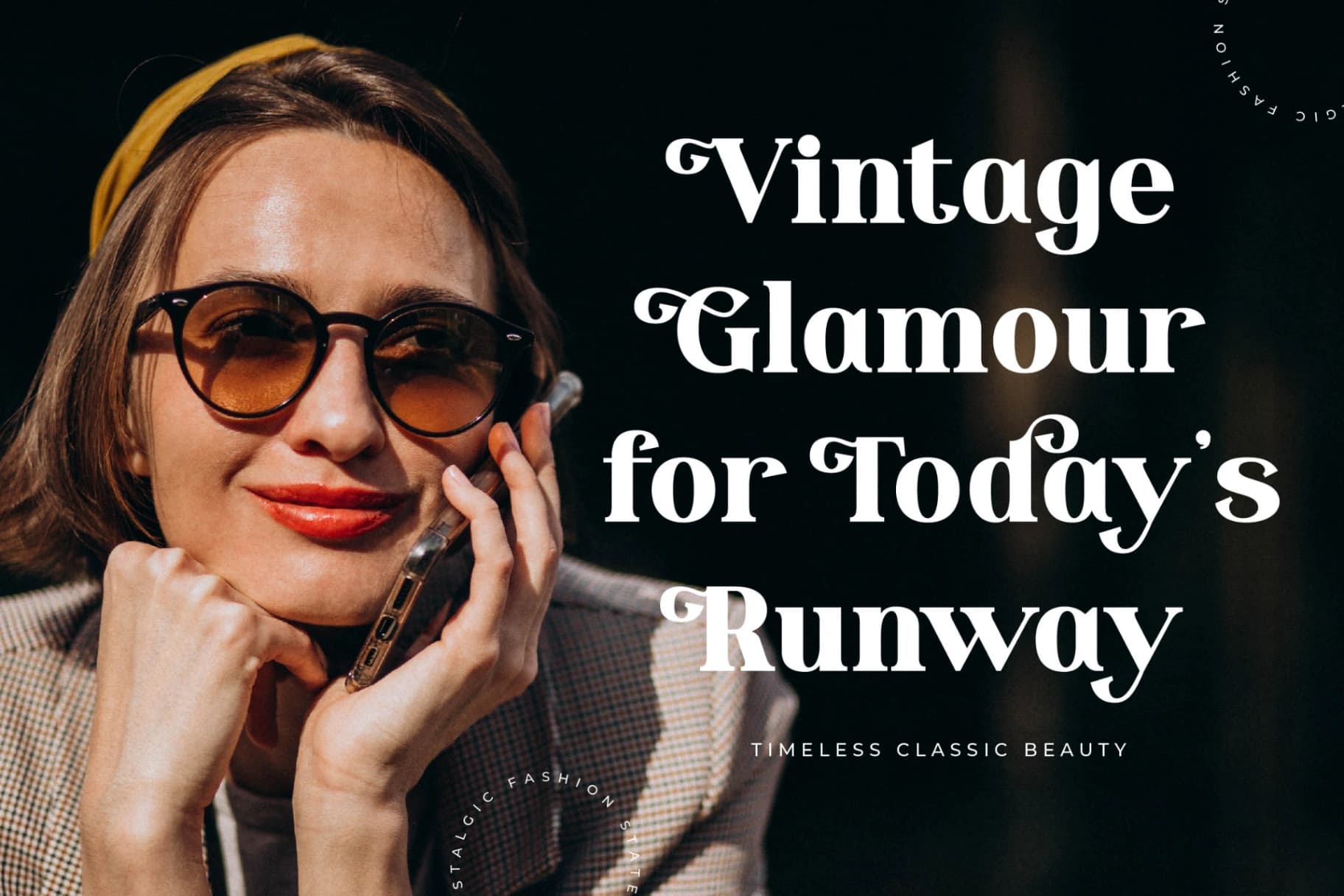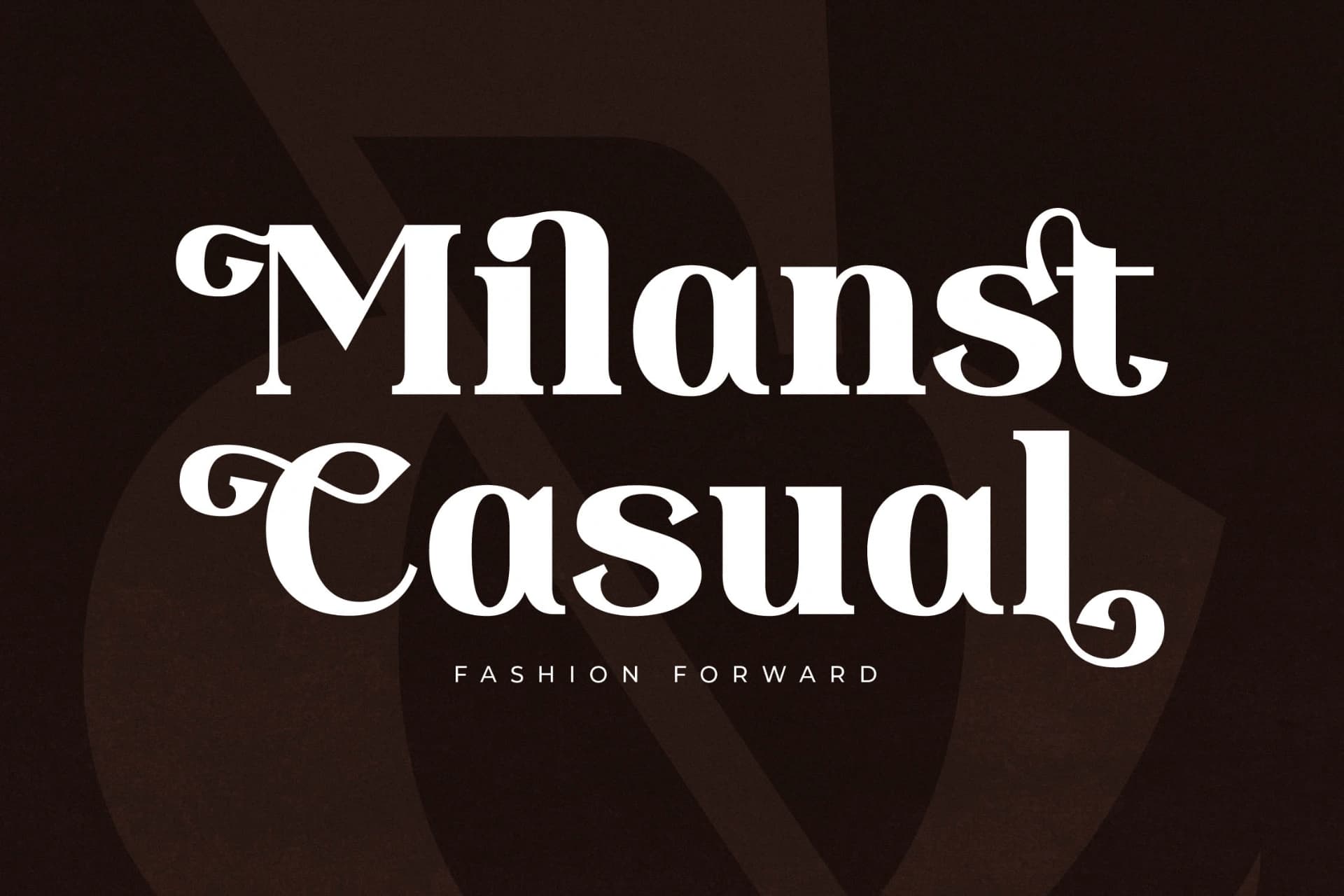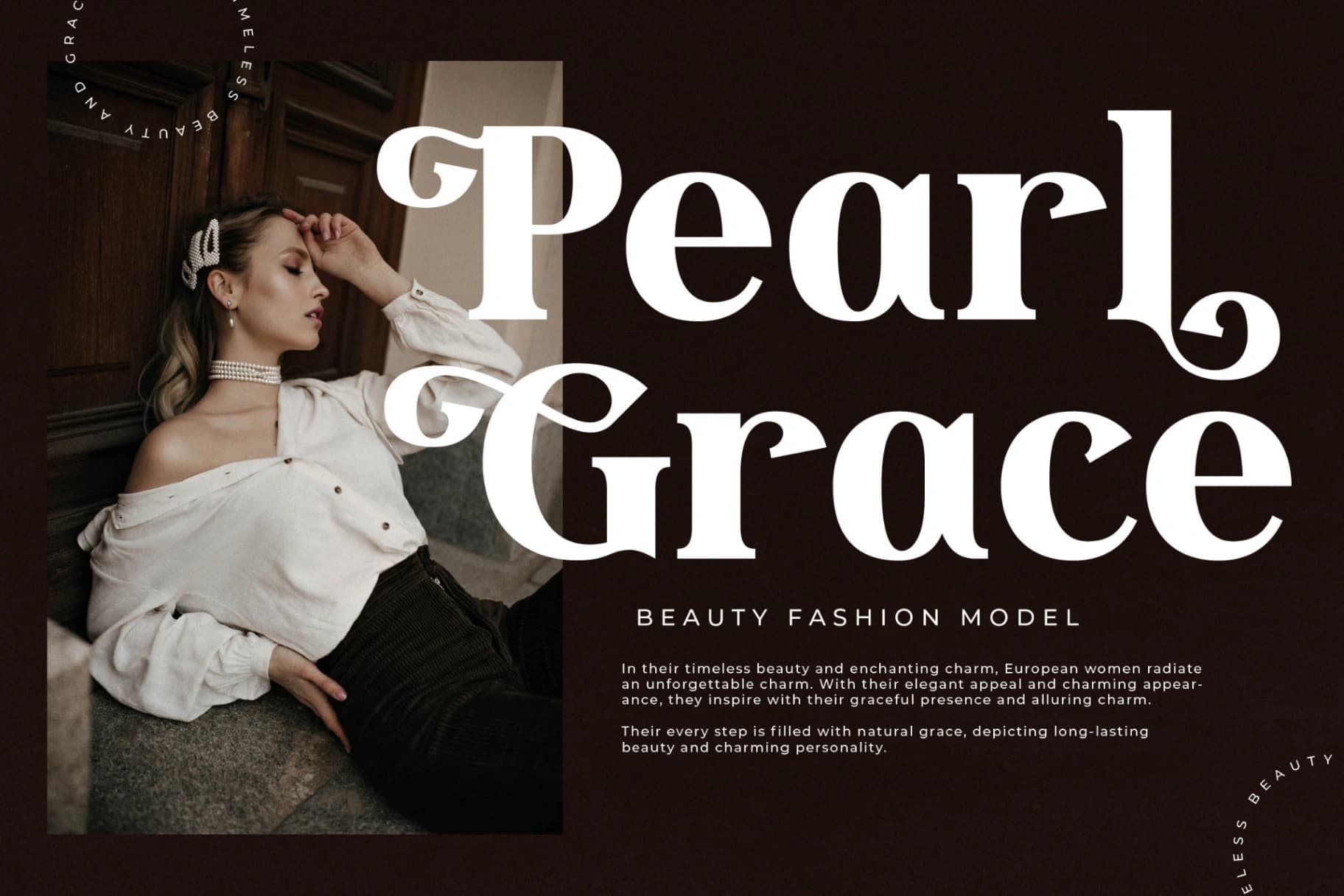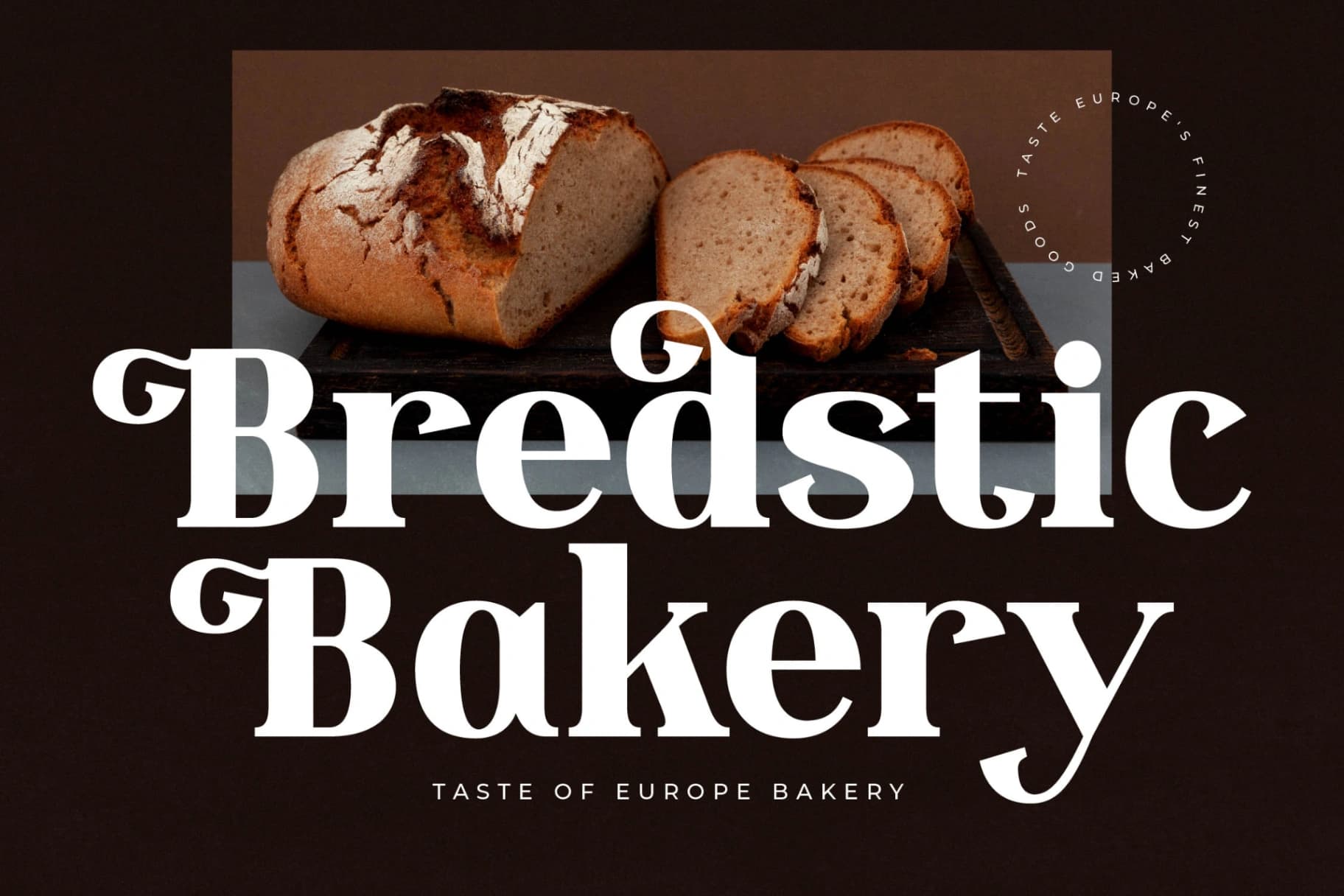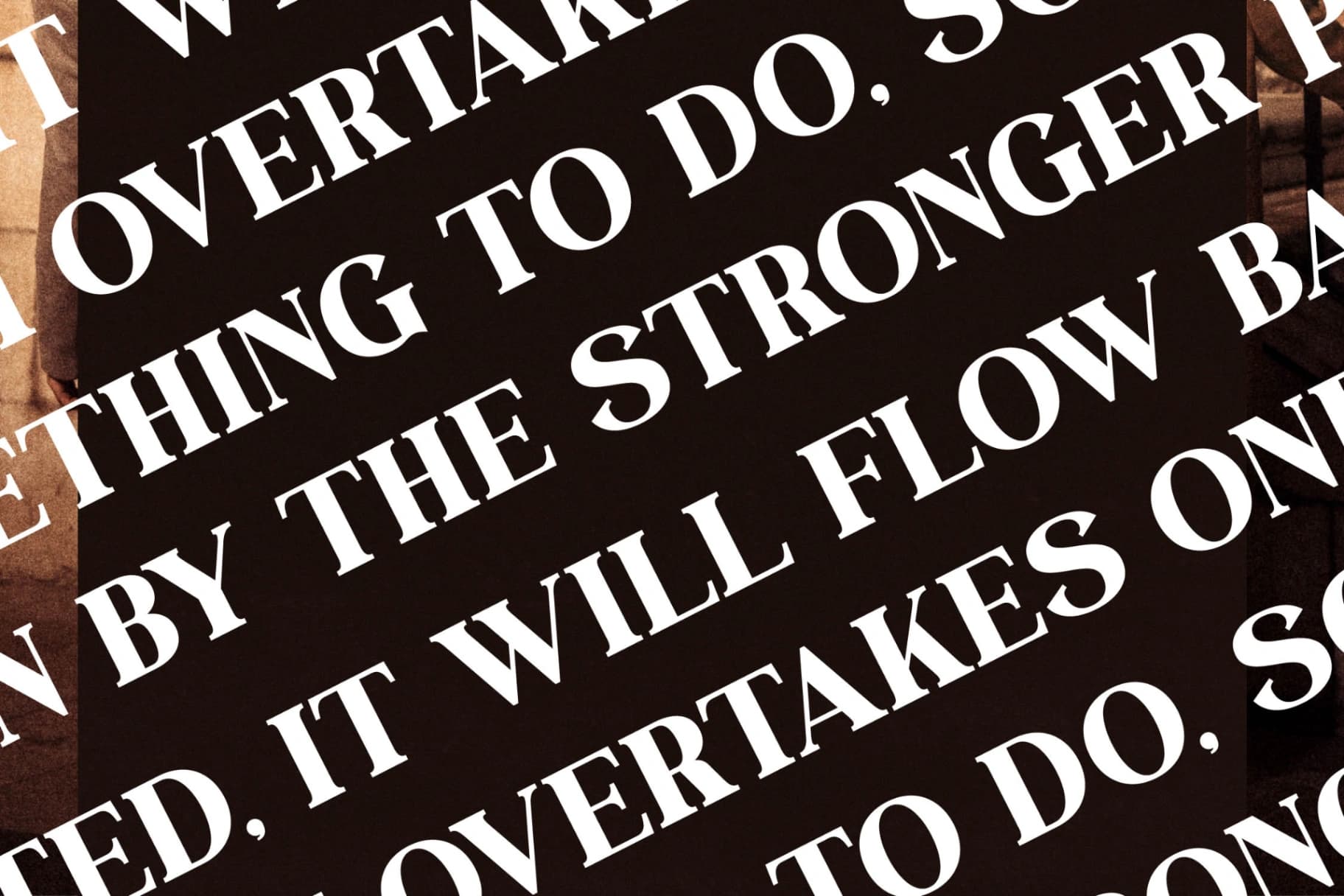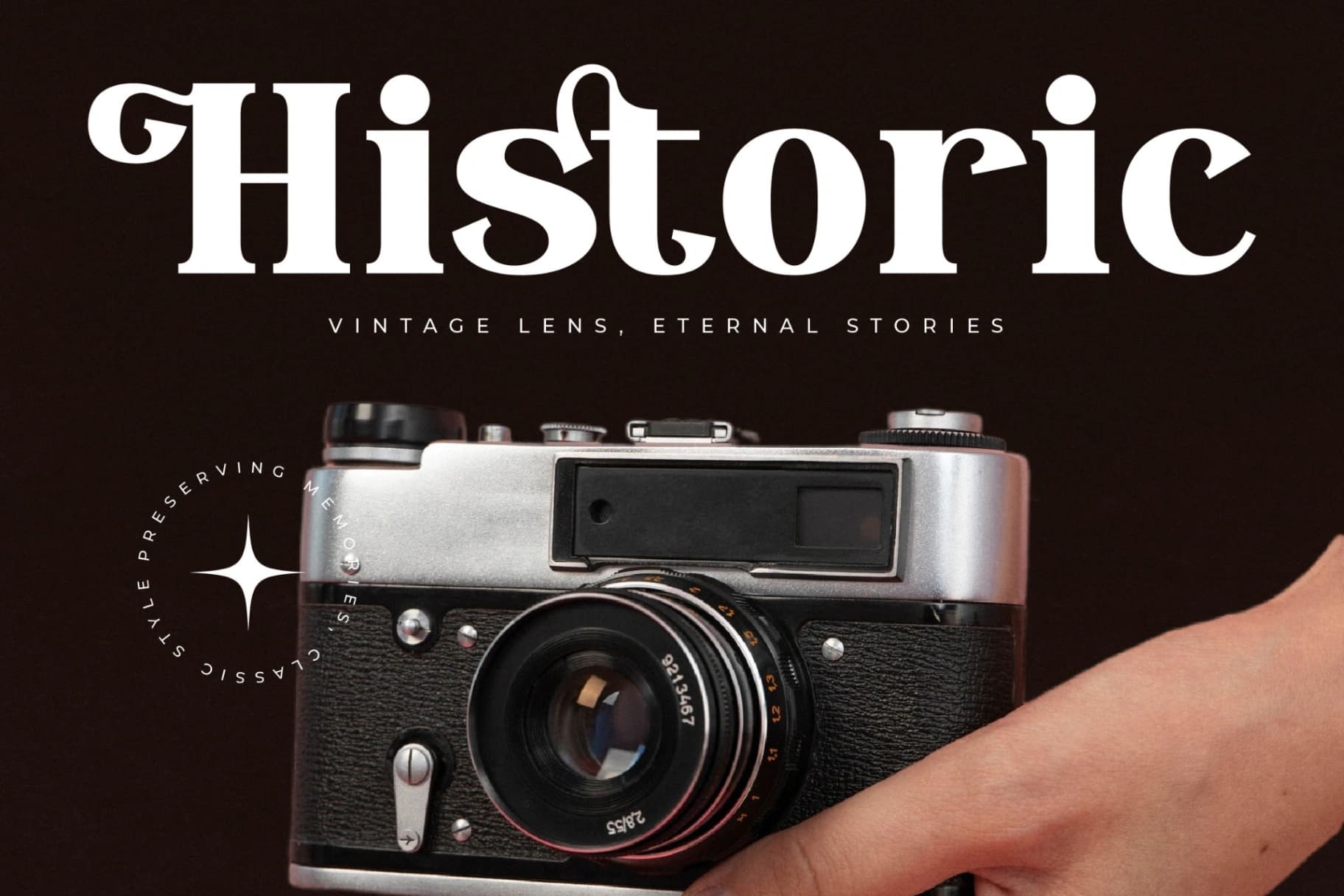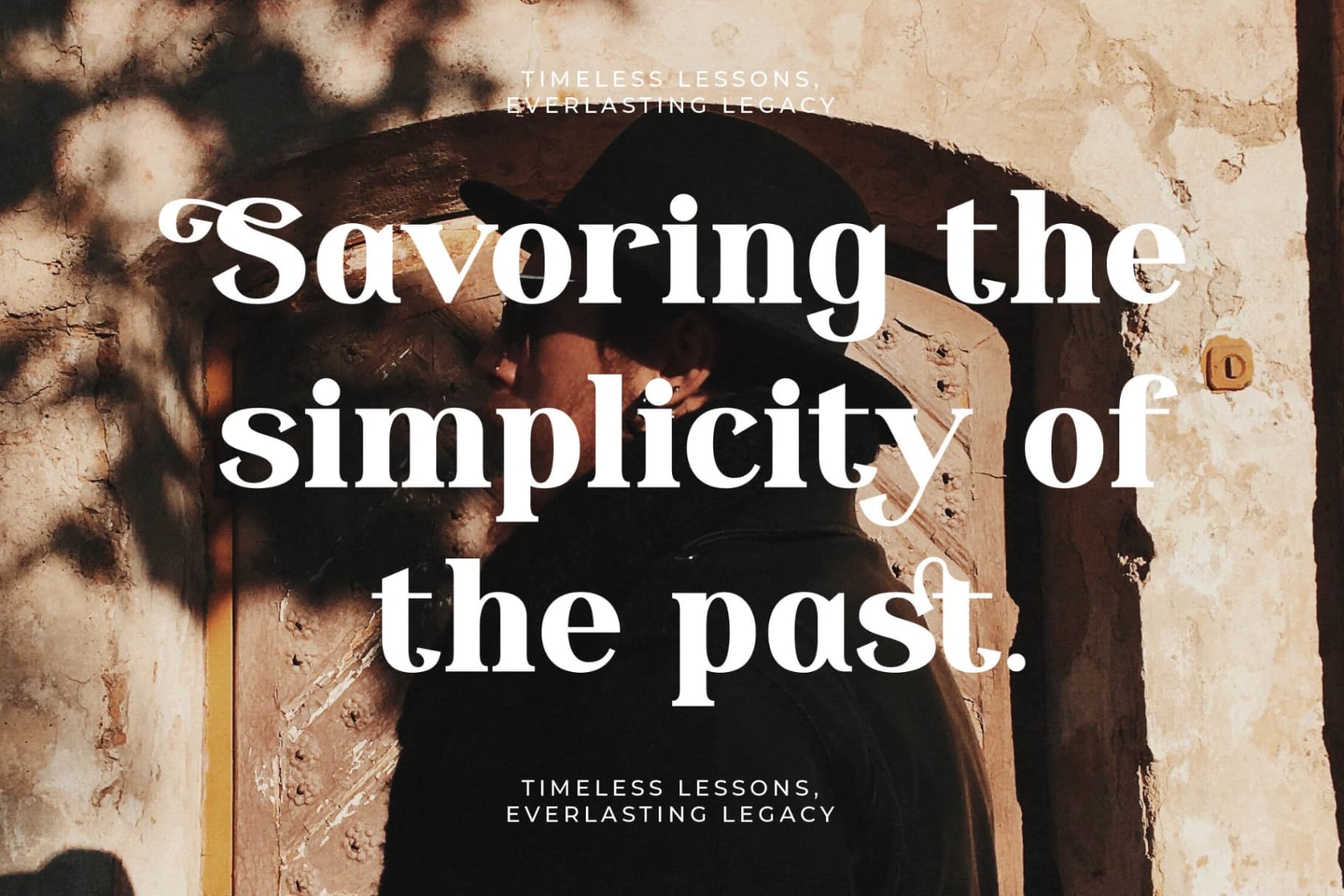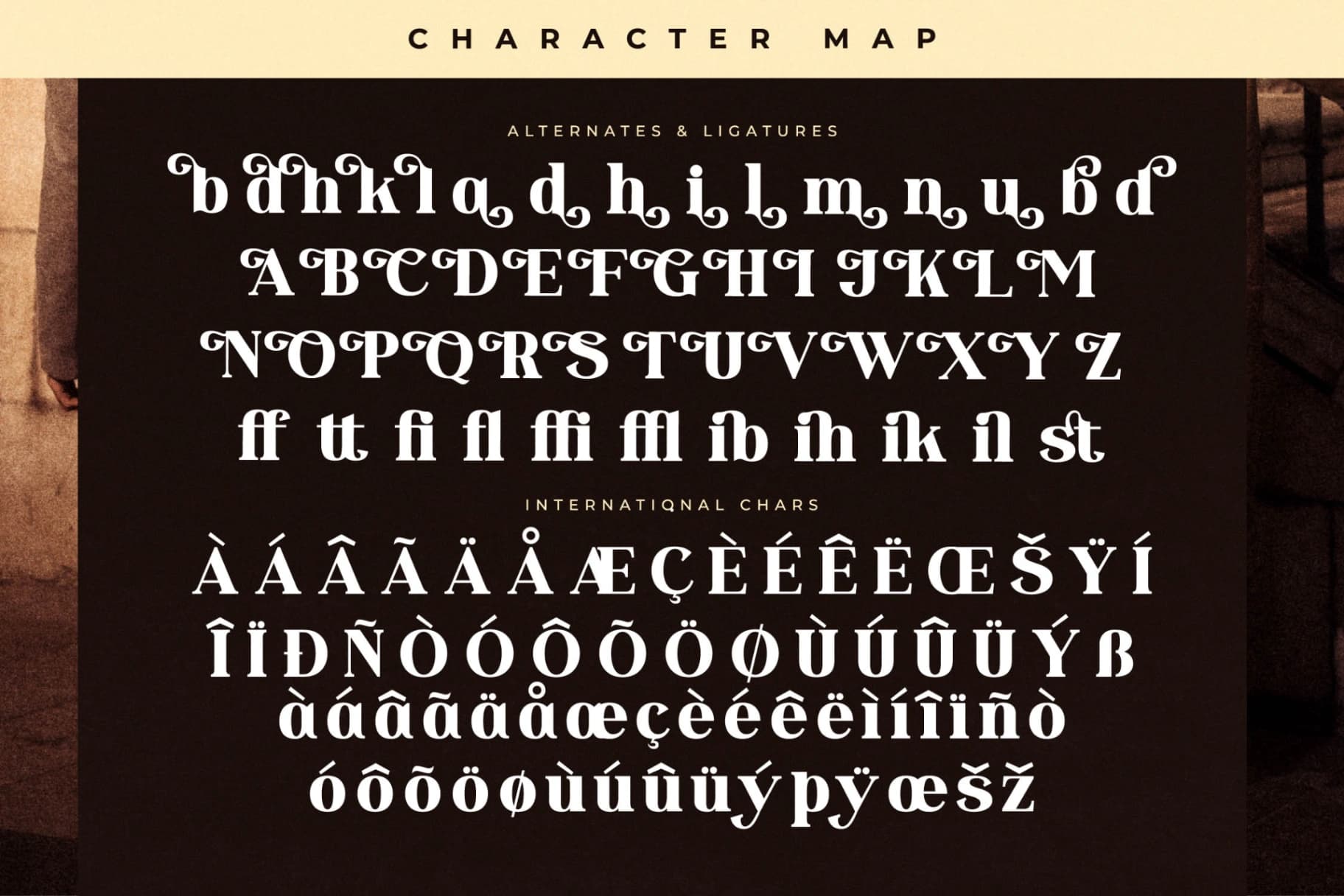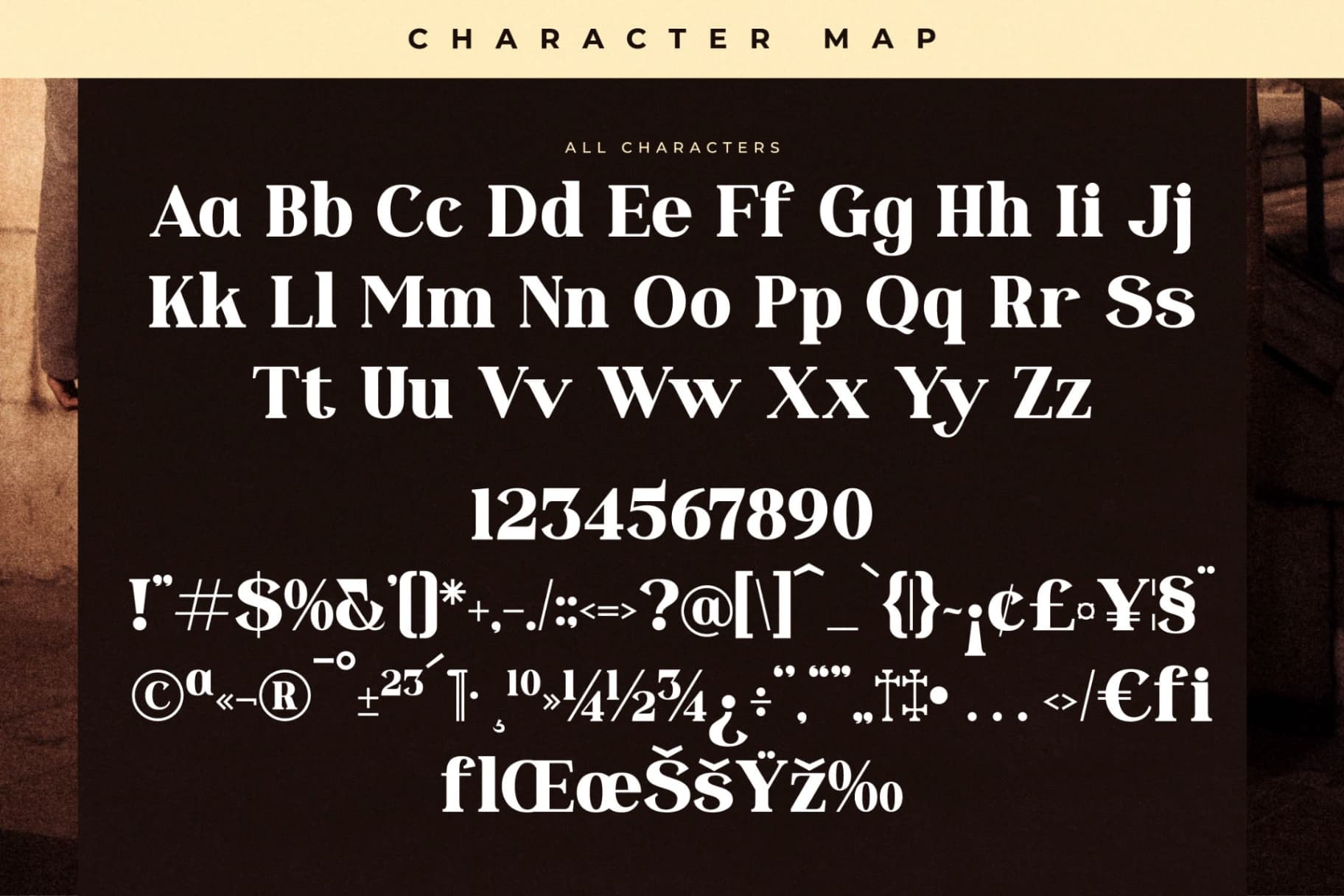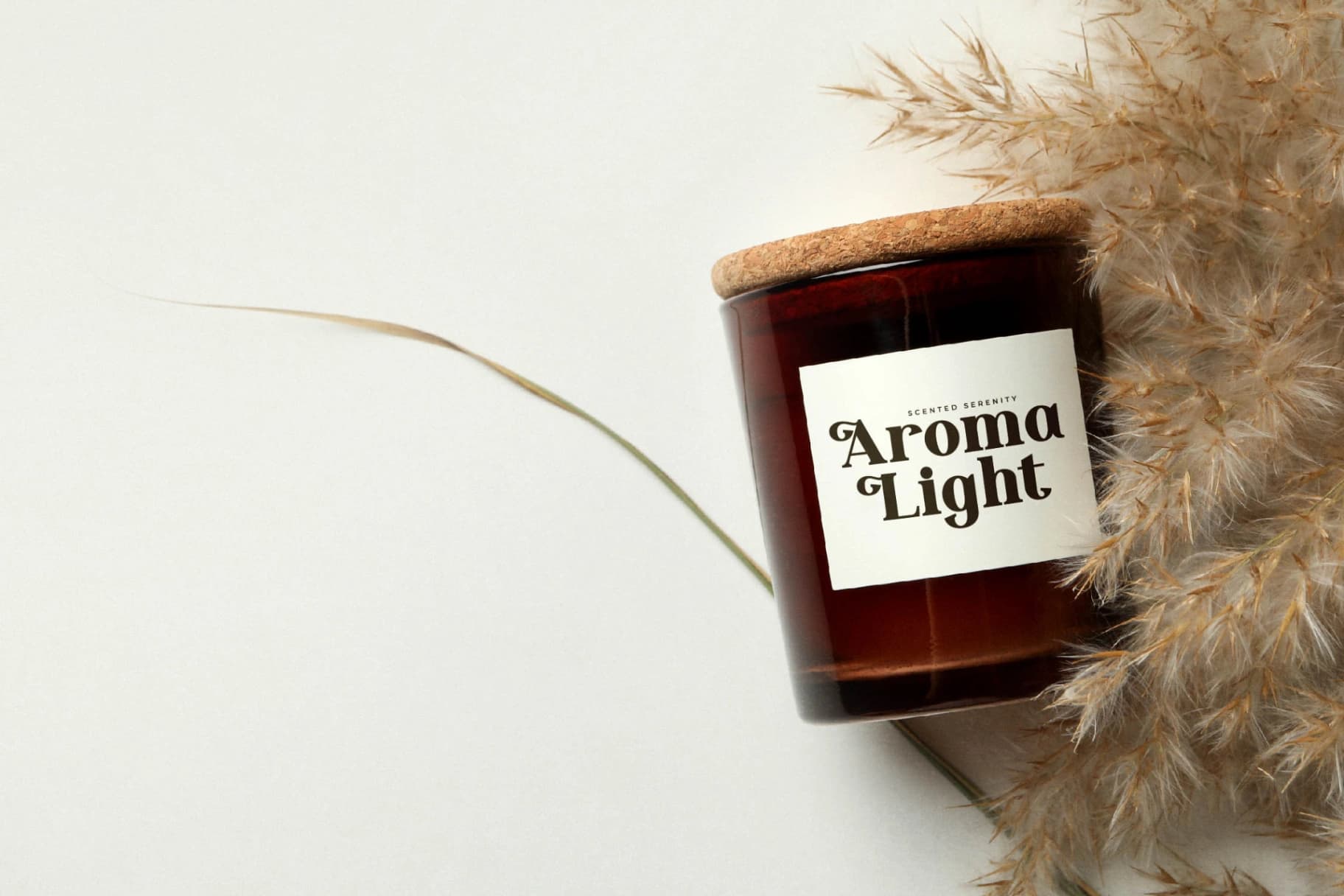
Silenta Vintage – Alternate Serif Font
Redefine elegance with a vintage soul. The Silenta Vintage – Alternate Serif Font delivers a striking blend of historical refinement and contemporary flair. Characterized by its bold high-contrast strokes and graceful, flowing serifs, this typeface captures immediate attention. The distinctive curves and exaggerated terminals evoke a sense of nostalgic luxury, ensuring your headlines possess unmatched presence and unforgettable charisma in any design portfolio.
Unlock exceptional design flexibility through OpenType features. The true power of Silenta Vintage – Alternate Serif Font lies in its rich set of stylistic alternates and decorative ligatures. These sophisticated flourishes allow professional designers to tailor every word, transforming standard text into intricate, bespoke artwork. This deep customization capability ensures maximum visual impact across various media, making it highly versatile for crafting unique, memorable typographic layouts.
Expand your brand communication without borders. With its extensive multilingual support, Silenta Vintage – Alternate Serif Font adapts seamlessly across global markets, making it incredibly versatile for international projects. This robust linguistic capability ensures that the font’s luxurious aesthetic and professional integrity are maintained whether designing for Paris, Tokyo, or New York, guaranteeing a consistent and powerful brand voice worldwide.
Invest in an unforgettable visual identity that commands premium pricing. Silenta Vintage – Alternate Serif Font is the definitive choice for projects demanding an air of exclusivity and refinement. It is perfect for luxury branding, high-end fashion campaigns, sophisticated magazine editorials, and exclusive product packaging design. Utilizing this unique typeface instantly elevates products and services, signaling premium quality and impeccable, sophisticated taste to your discerning clientele.